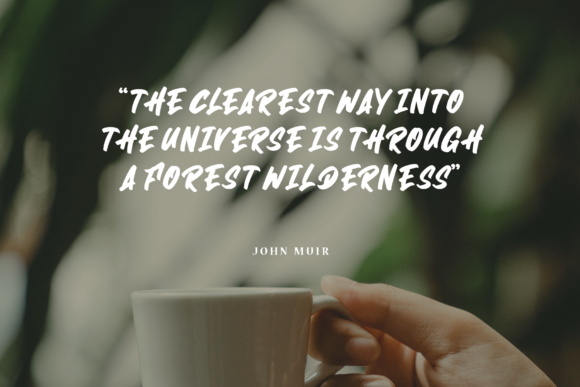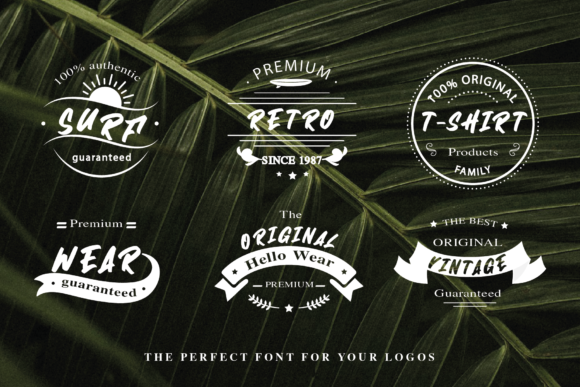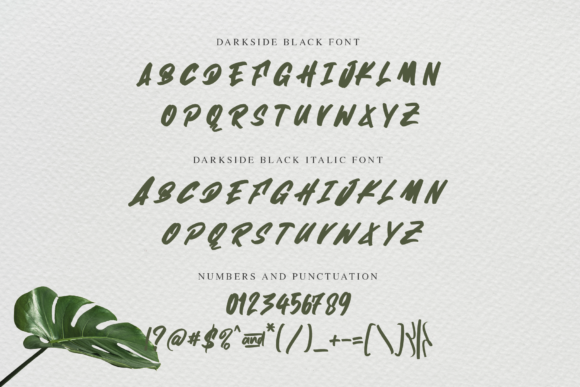
Introduction to Darkside Font
Darkside is a cool and brushed display font.
📌 Product Name Darkside Font
👤 Author aldedesign
It is PUA encoded which means you can access all of the glyphs and swashes with ease Add it confidently to your favorite creations and let yourself be amazed by the outcome generated.
Key Features of Darkside Font
Why Choose Darkside Font?
Darkside Font offers exceptional quality and versatility, making it a valuable addition to your design toolkit. Whether you’re creating for personal projects or commercial use, Darkside Font delivers professional results.